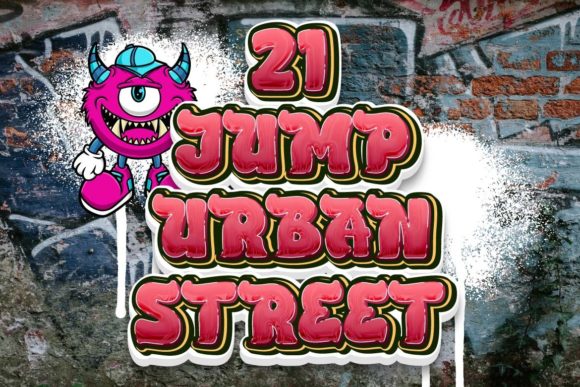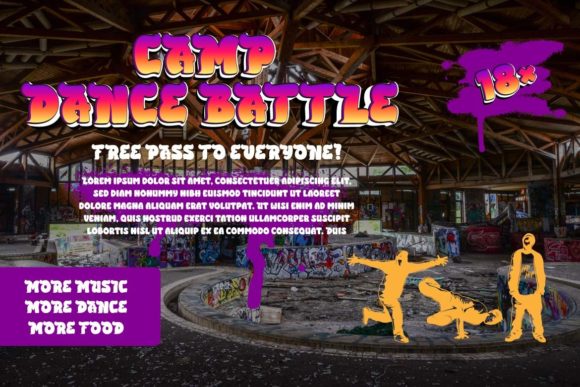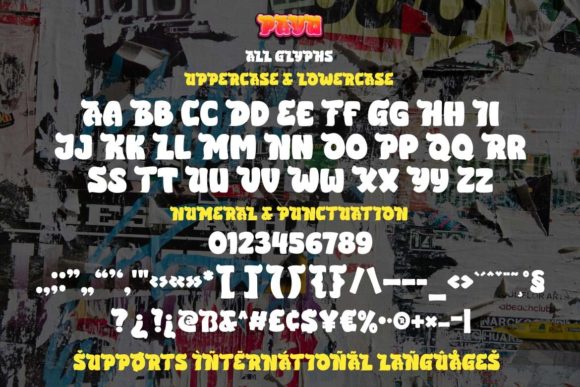
Introduction to Payu Font
Do you remember the moment when a bold, eye-catching design stopped you in your tracks? For designers, those ‘aha’ moments are the driving force behind our creative projects. And what’s more exciting than discovering a new design resource that can elevate your work to the next level? Enter the Payu Font, a graffiti-styled display font that exudes a street art vibe like no other.
With its bold, high-quality design, the Payu Font is the perfect addition to any creative project. Whether you’re working on a t-shirt design, sportswear logo, or advertisement, this font is sure to grab attention. Plus, with a transparent background option, you can easily layer it over any image or texture. And the best part? The Payu Font is available for free download, making it an invaluable resource for designers of all levels.
Key Features of Payu Font
- High-quality design resource for creative projects, perfect for logos, graphics, and typography.
- Transparent background option for seamless integration into any design project.
- High-resolution font files (up to 300 DPI) for crisp and clear display on various devices.
- Unique, modern design style that adds a touch of elegance to any creative project.
Honest Review: Payu Font
I recently stumbled upon the Payu Font, a design resource that caught my attention with its modern and sleek aesthetic. As a designer, I was eager to dive in and see what it had to offer.
- ✨ High quality and crisp typography, making it perfect for creative projects that require a professional touch.
- ✨ Transparent background, allowing for seamless integration with various design elements.
- ⚠️ Limited font family options, which may not be suitable for large-scale projects or those requiring a wide range of typography.
- ⚠️ Some characters may not be fully compatible with certain design software, which can be frustrating for designers working on specific projects.
Overall, I was impressed with the Payu Font’s clean and modern design. While it may not be perfect for every project, it’s a great addition to any designer’s toolkit. If you’re looking for a high-quality, free design resource, the Payu Font is definitely worth checking out.
Tips for Getting the Most Out of Payu Font
Payu Font is a high-quality design resource that can add a professional touch to your creative project. To get the most out of it, use it on a transparent background to create a seamless design. You can also combine it with other design elements to create a unique and eye-catching design.
Payu Font is commonly used in graphic design, branding, and digital marketing projects. It’s a great choice for creating a modern and sleek design that stands out from the crowd. Whether you’re creating a logo, brochure, or social media graphic, Payu Font is a versatile design resource that can help you achieve your design goals.
Montserrat is a popular sans-serif font known for its clean lines and geometric shapes. It’s perfect for use in creative projects that require a modern and urban feel, such as posters, flyers, and brochures. Montserrat is available for free download and can be used with a transparent background, making it a great alternative to Payu Font for designers who need a high-quality font for their design resource.
Q: Does Payu Font have a transparent background?
Payu Font is a vector-based font, which means it has a transparent background. This makes it easy to use with various design elements, such as images or other fonts, without worrying about background transparency issues.